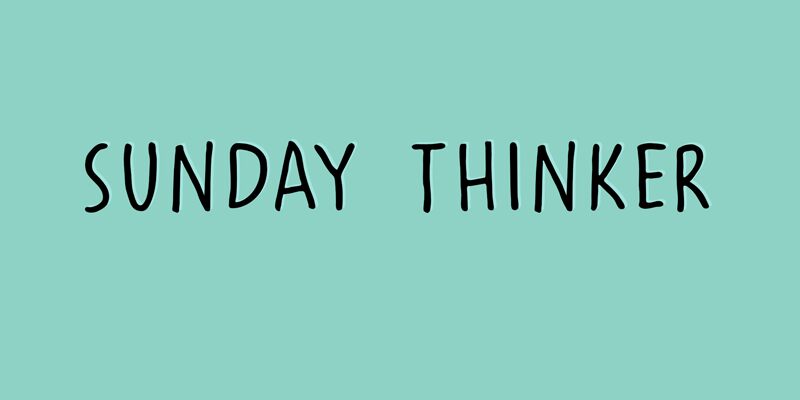
Sunday Thinker by Hanoded captures the essence of creativity and personal touch in its semi-light, semi-condensed handwritten style. Its thoughtful strokes evoke a sense of artisanal charm, perfect for designers looking to infuse a project with warmth and originality. Whether gracing the cover of an upcoming novel or wrapping itself around the contours of innovative packaging, this font stands ready to adapt and accentuate any concept it accompanies.
Sunday Thinker's versatility shines through in applications that demand a blend of elegance and approachability, making it an ideal choice for those who value a handcrafted aesthetic in their visual storytelling.